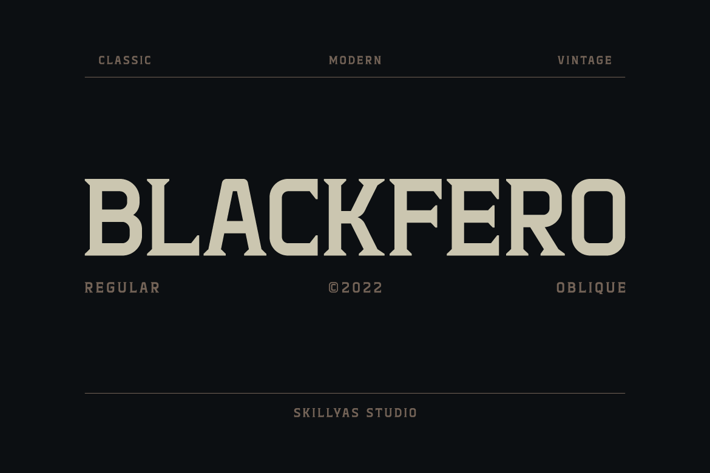
Blackfero a Display Font
Blackfero is a Serif Font inspired by the masculine Greek art style. It perfectly represents vintage in a modern and minimalist way. Blackfero typeface will make your product design look standing and extraordinary.
Blackfero Vintage Serif is perfect for branding projects, logos, Sports designs, social media posts, advertisements, product packaging, product designs, vintage labels, photography, watermarks, stationery, and any projects that need a strong taste.